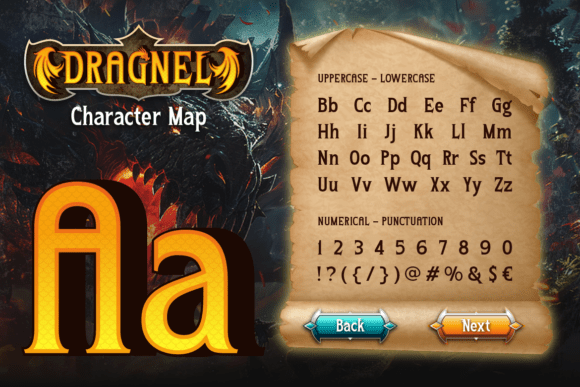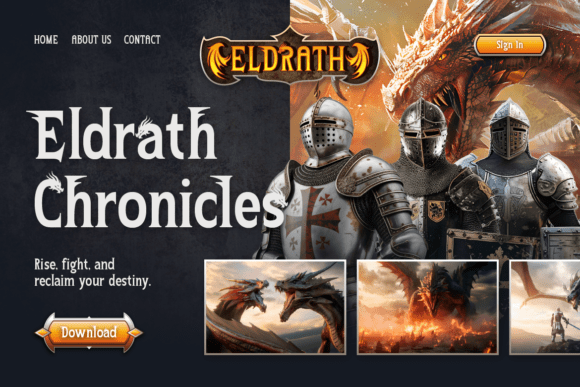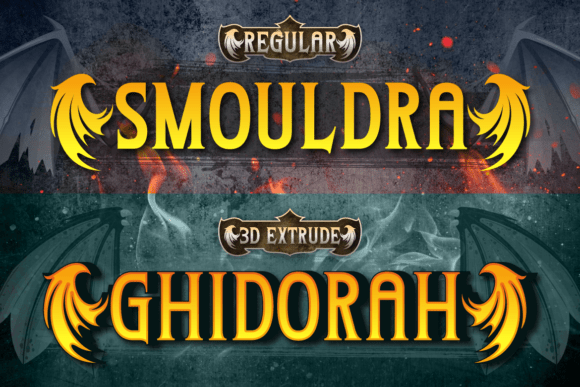
Introduction to Dragnel Font
Unleash your inner hero with Dragnel, a bold fantasy display font forged in the fires of legend.
Inspired by dragons, ancient warriors, and medieval adventures, this typeface roars with strength and courage With its fiery curves and bold strokes, Dragnel is perfect for fantasy games, epic movie titles, book covers, or any design that needs that legendary touch.